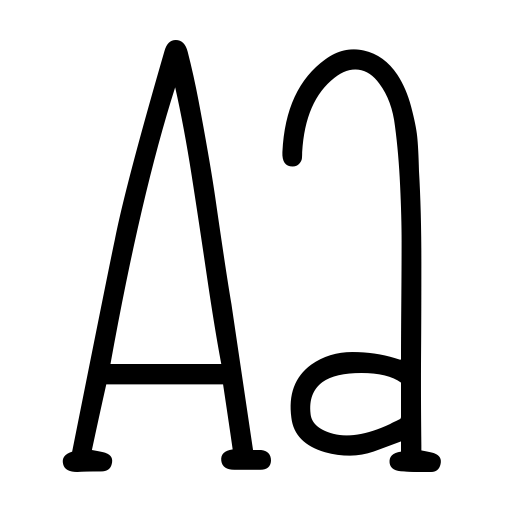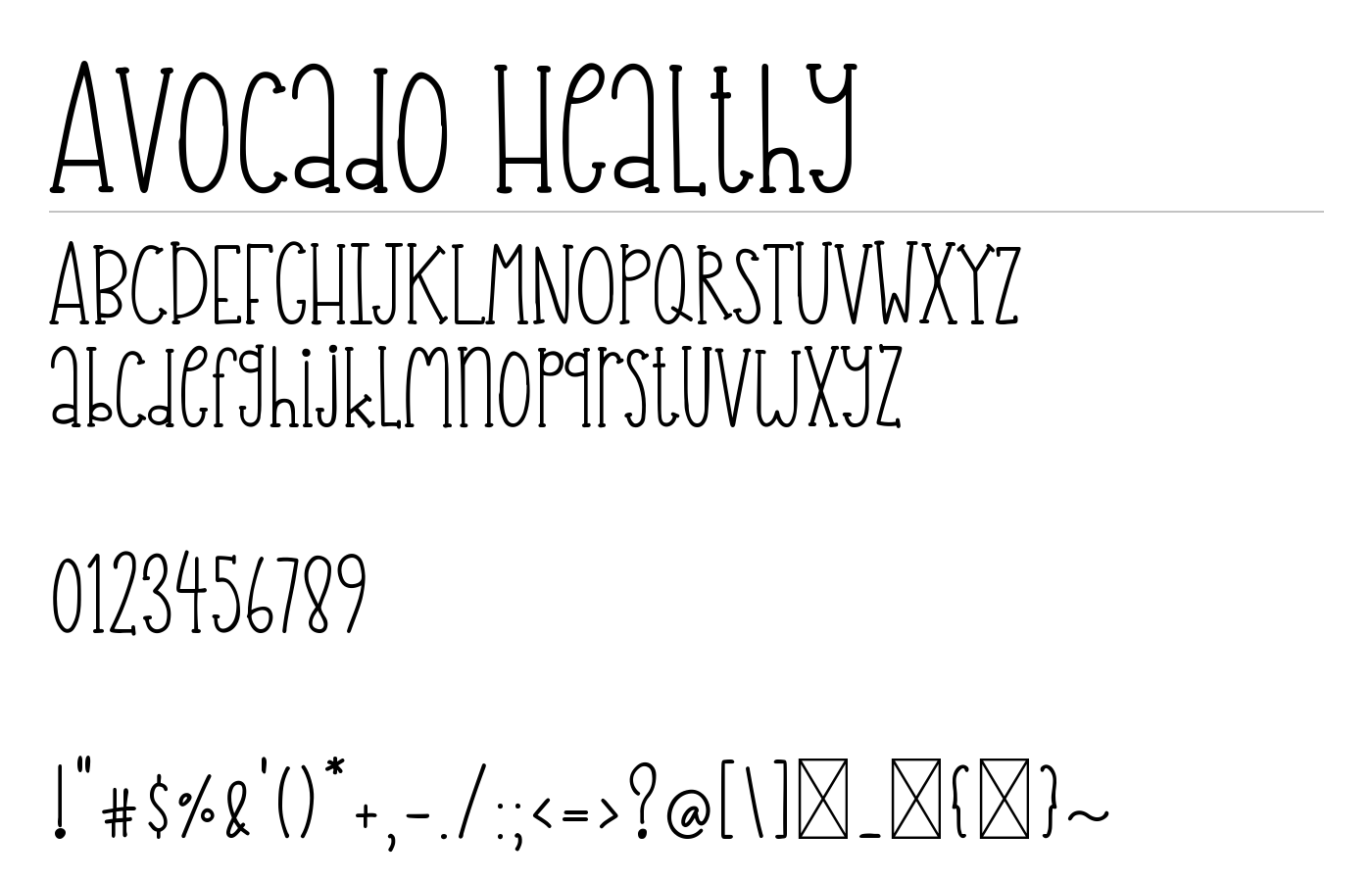
Avocado Healthy is a playful and quirky sans serif font with a tall, narrow structure and whimsical, rounded strokes that give it a hand-drawn, friendly feel. Its thin weight, mixed case support, and unique letter shapes make it perfect for creative, informal designs like children's books, organic product packaging, or casual branding where a lighthearted, approachable vibe is desired. This font stands out with its charming personality and legibility in display use, making it ideal for headlines and decorative text.
Avocado Healthy Font